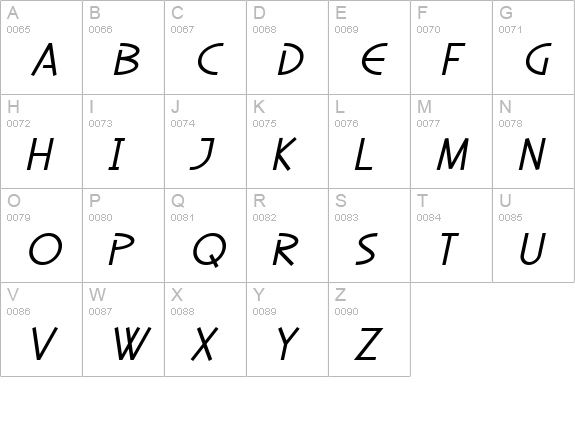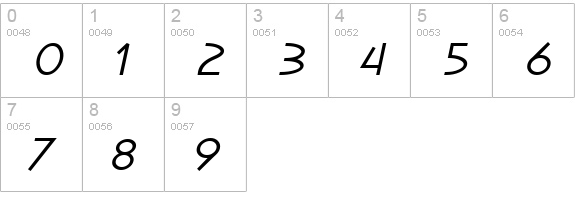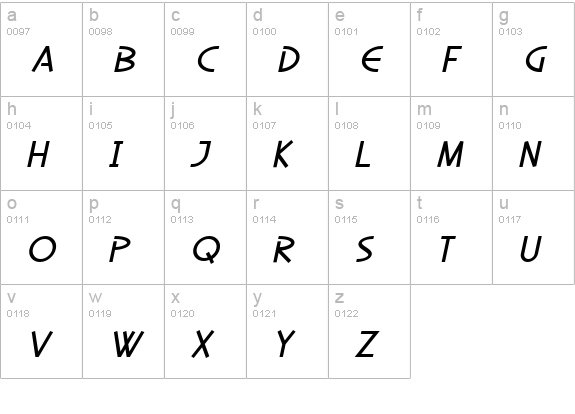
SF Diego Sans Oblique Font Details
SF Diego Sans Oblique is a distinctive, italic variant in the SF typeface family \xE2\x80\x94 well suited to design and typography projects.
SF Diego Sans Oblique is a modern and stylish font that effortlessly combines sleekness with a touch of sophistication. Its unique oblique design adds a dynamic and engaging aspect to any creative project, making it the perfect choice for those looking to make a bold statement. This font is not only visually stunning, but it also offers exceptional legibility, ensuring that your message is conveyed clearly and effectively. With its clean lines and well-defined curves, SF Diego Sans Oblique offers a seamless reading experience across various platforms and mediums. One of the standout features of this font is that it is freely available to download at FontsMarket.com. This means that you have the opportunity to enhance your creative endeavors without any financial constraints. Whether you are a professional designer seeking to elevate your work or an individual looking to add a touch of sophistication to personal projects, SF Diego Sans Oblique is the perfect choice. With its extensive character set, SF Diego Sans Oblique allows you to unleash your creativity and explore endless possibilities. From headlines to body text, this font adapts effortlessly to any typographic need, ensuring a cohesive and visually appealing design. Whether you are creating a logo, designing a website, or crafting a print advertisement, SF Diego Sans Oblique will undoubtedly become your go-to font. Its versatility, elegance, and captivating aesthetic make it a standout choice in any creative endeavor. Don't miss out on the opportunity to elevate your designs with SF Diego Sans Oblique. Download this exceptional font for free at FontsMarket.com and discover the transformative power it brings to your projects.